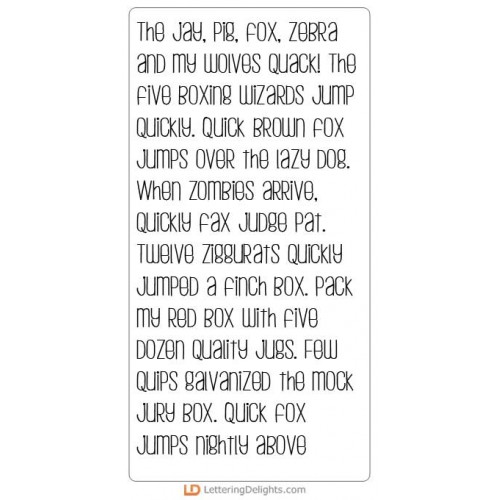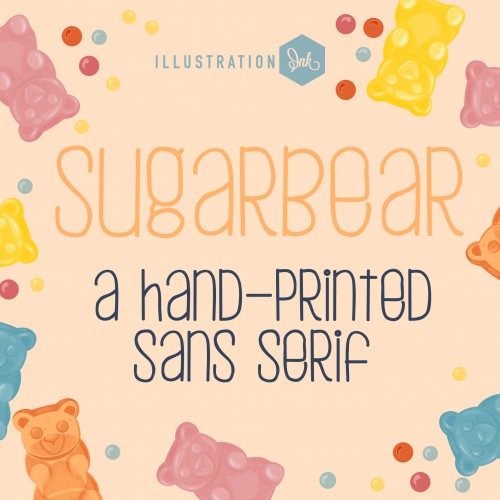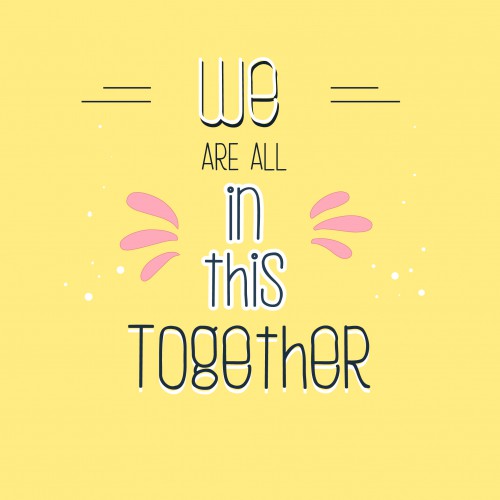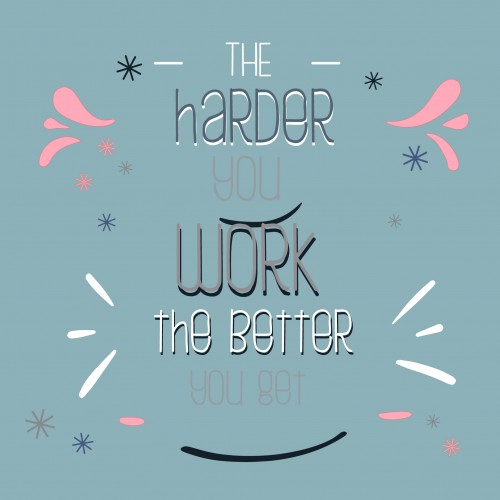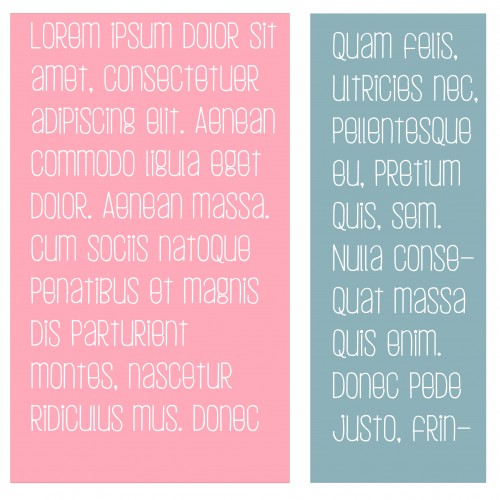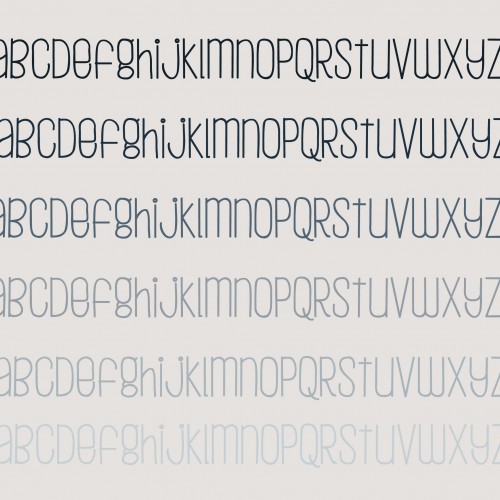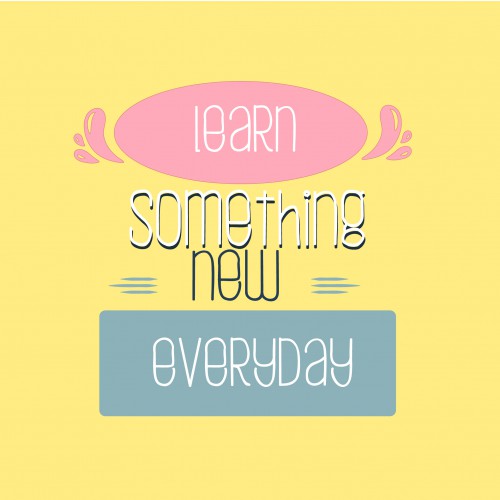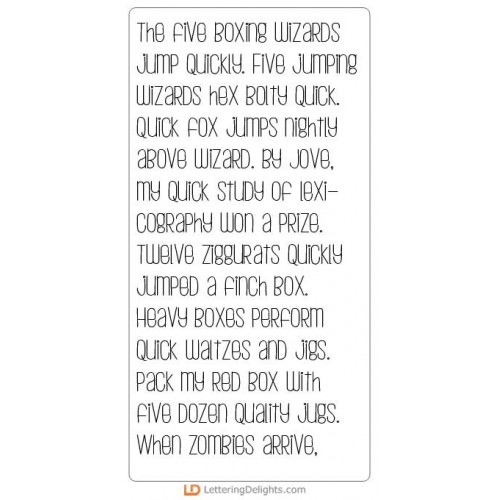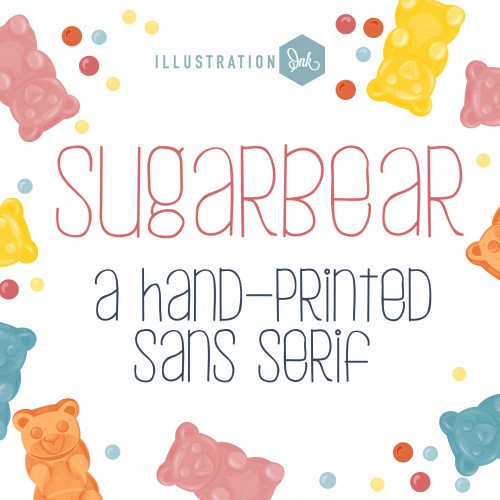
ZP Sugarbear - FN
This hand-printed font is a simple print with no descenders in the lowercase...
ZP Sugarbear Light - FN
This hand-printed font is a simple print with no descenders in the lowercase...